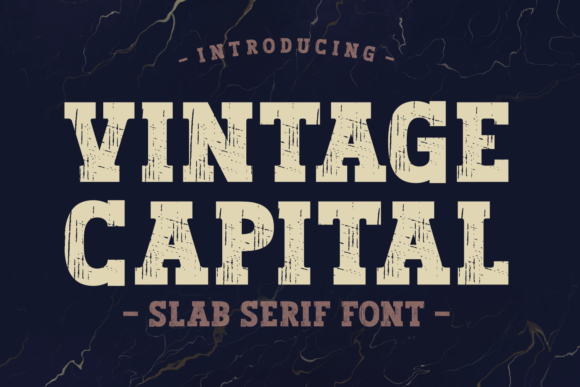
Introducing Vintage Capital Font, the perfect choice for anyone looking for a bold and captivating slab serif font. Designed by Jasm (7NTypes), this font has everything you need to elevate your crafting ideas to the next level.
Vintage Capital is characterized by its rough texture and thick lettering, making it the ideal font for creating eye-catching branding, labels, and even cards. With this font, your designs will stand out from the crowd and leave a lasting impression on your audience.
Whether you're a professional designer or just starting out, Vintage Capital is the perfect addition to your collection. Its versatility and timeless appeal make it suitable for a wide range of projects, from modern to retro-inspired designs.
In addition to its aesthetic appeal, Vintage Capital is also incredibly easy to use. Its bold and legible lettering ensures that your message will be clear and easy to read, while its attention-grabbing texture adds a unique touch to your designs.